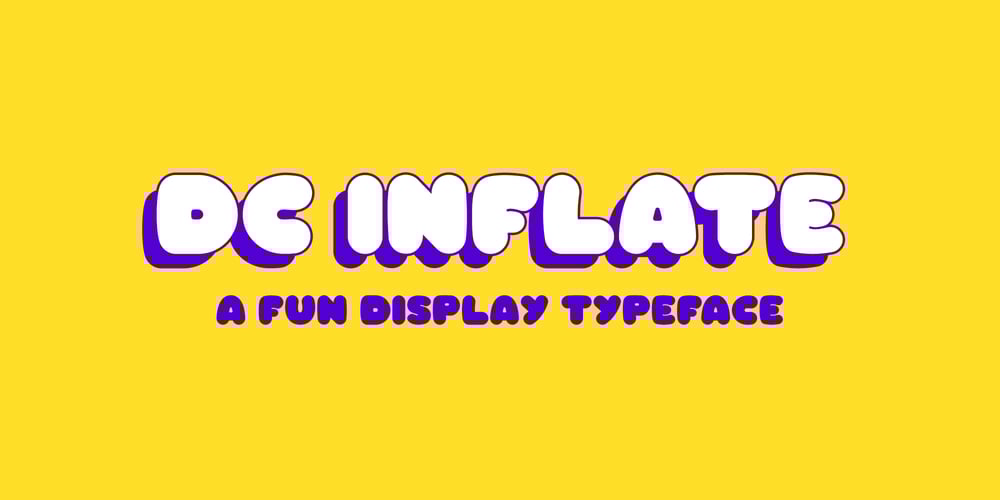
DC Inflate Font Family was designed by Dario Crisafulli and published by CrazyFully. DC Inflate contains 1 styles and family package options. DC Inflate is an uppercase, bold, rounded display typeface. Ideal for logo design, big, fun and impactful titles. It supports the Western European character set and it contains 215 glyphs.